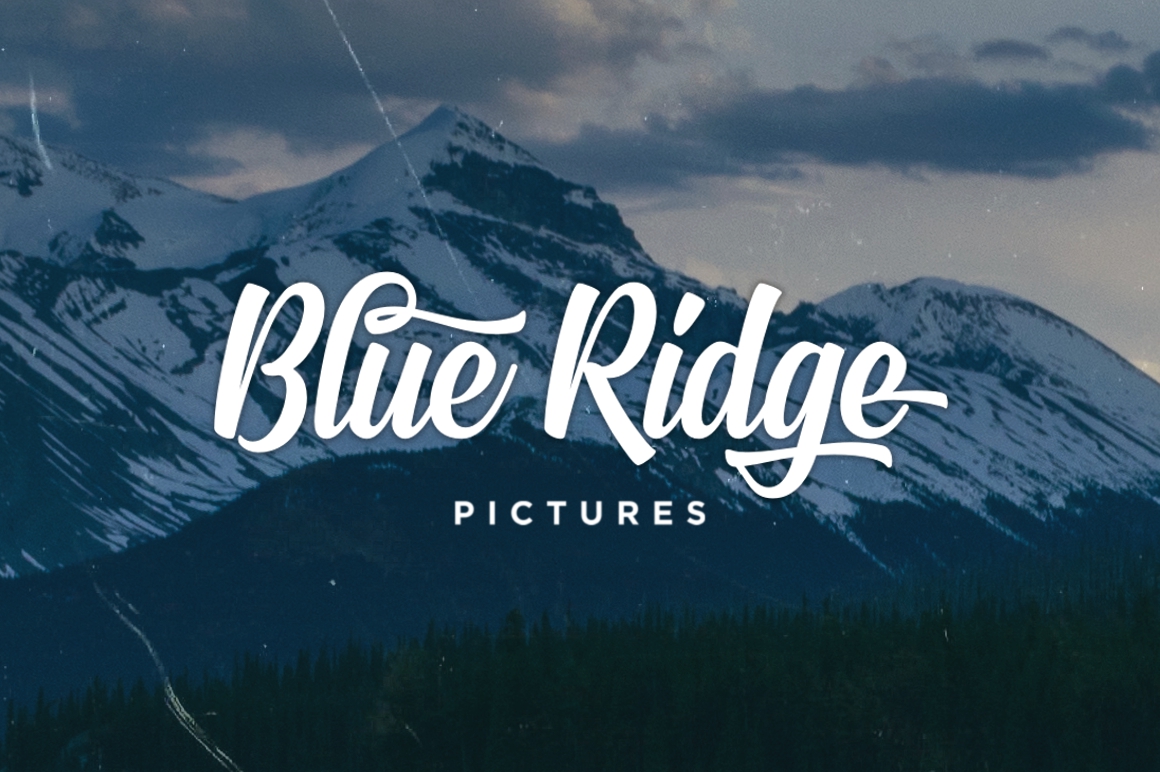
Signatra Script
Signatra Script Font
Introducing our new font; Signatra. A clean and playful yet trendy typeface. This clean and bold script is mouse-crafted from scratch with high attention to the details; offers you a natural hand-lettering/signpainting experience. Suits best for logotype, poster/t-shirt designs, food/beverage labels, greeting cards, quote-writing-designs, apparel/t-shirt designs, wedding invitations, and many more.